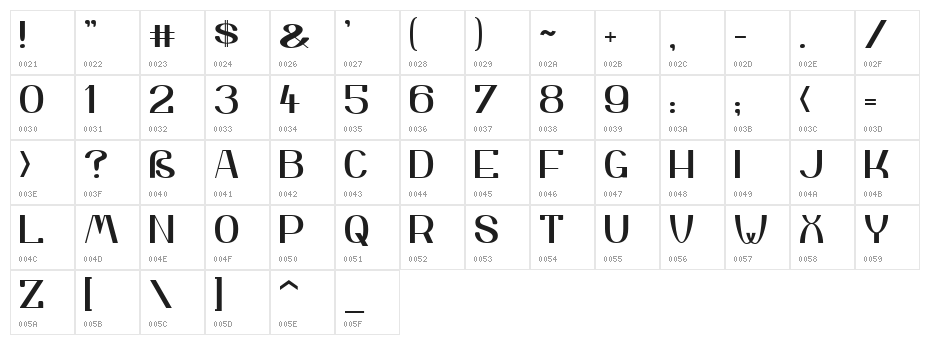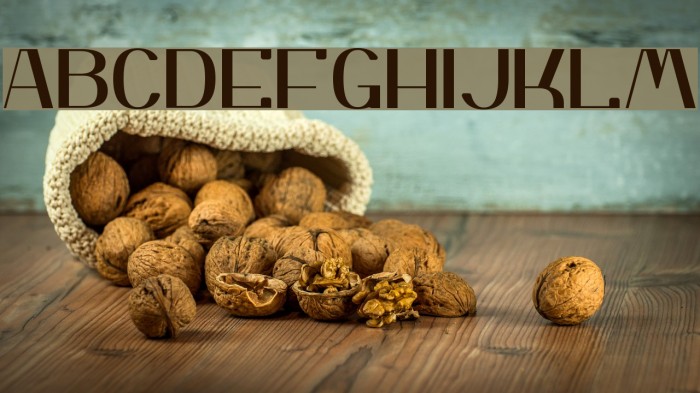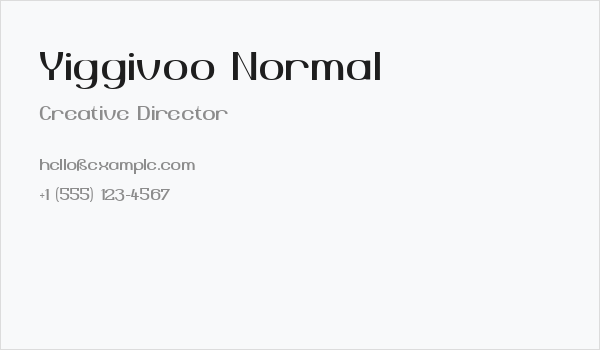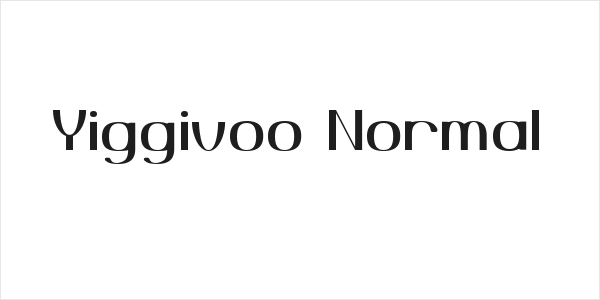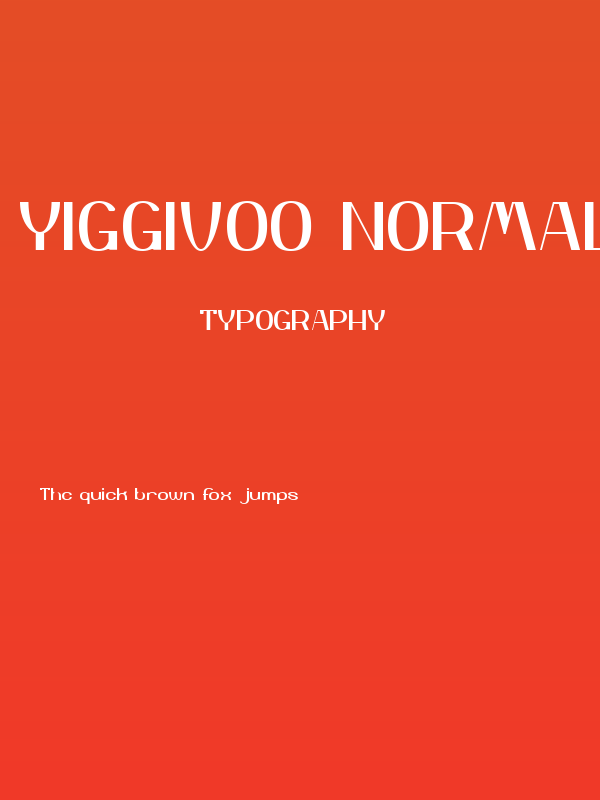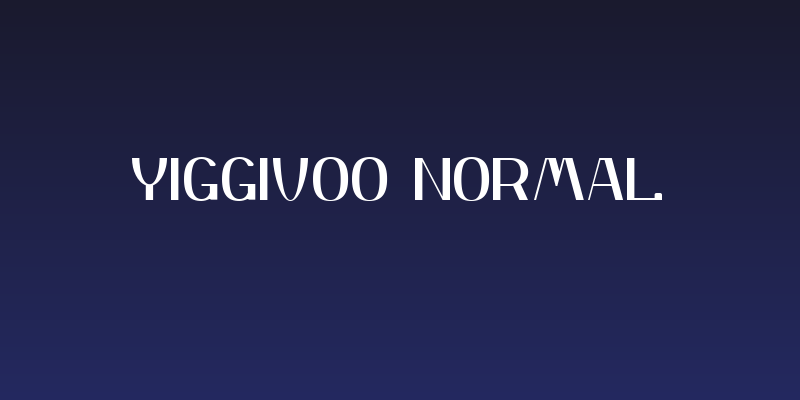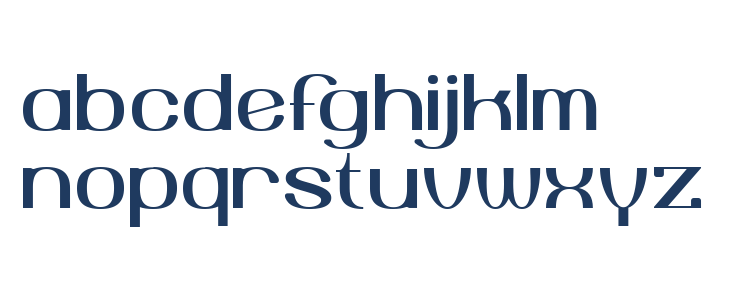
Yiggivoo Normal Font
Yiggivoo Normal Description
This font features a unique blend of modern and decorative elements, characterized by its distinct geometric shapes and playful curves. The uppercase letters exhibit a striking contrast with sharp angles and smooth curves, creating a dynamic visual appeal. The lowercase letters maintain a consistent style, with rounded edges and a slightly condensed form, enhancing readability. Numbers are bold and clear, ensuring they stand out in any design. Special characters are thoughtfully designed, maintaining the font's overall aesthetic. This font's versatility makes it suitable for a variety of creative projects.